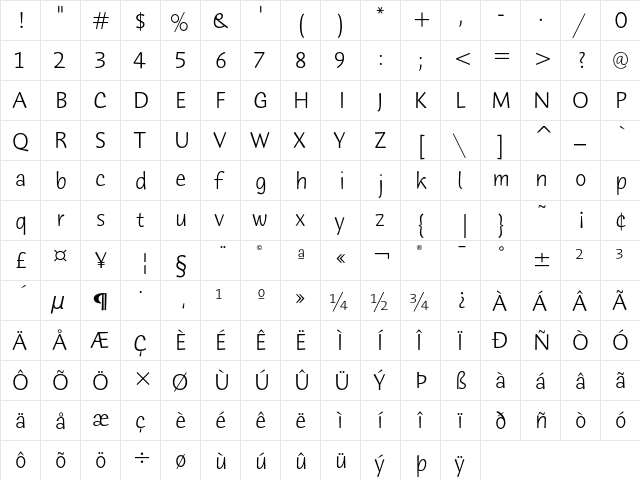
Humana Sans ITC Light
Design Context for Humana Sans ITC Typeface
Humana Sans ITC takes a measured approach to typography — its balanced proportions and neutral character make it a reliable workhorse for both digital and print work. Its slender proportions lend an understated elegance to any composition.
Pro Tip: Pair Humana Sans ITC with a font of contrasting weight or personality to build a more expressive typographic hierarchy.